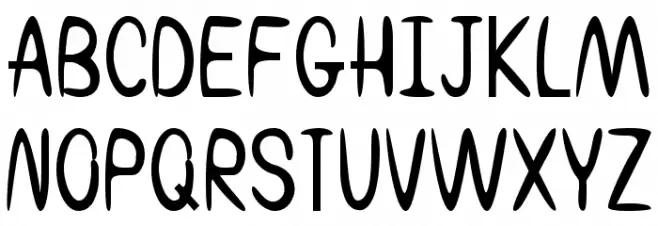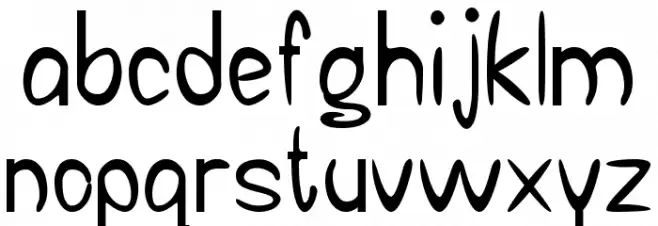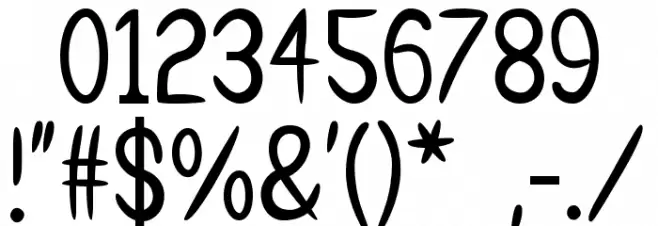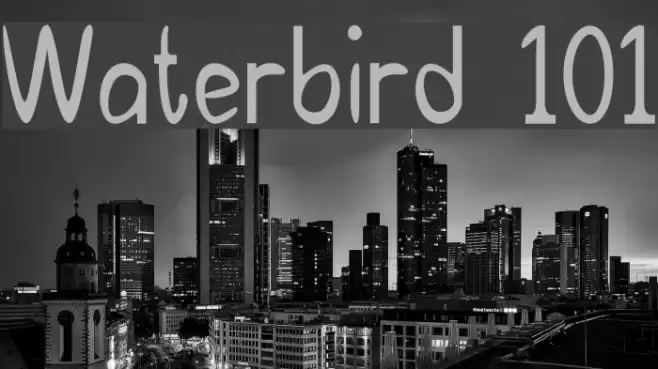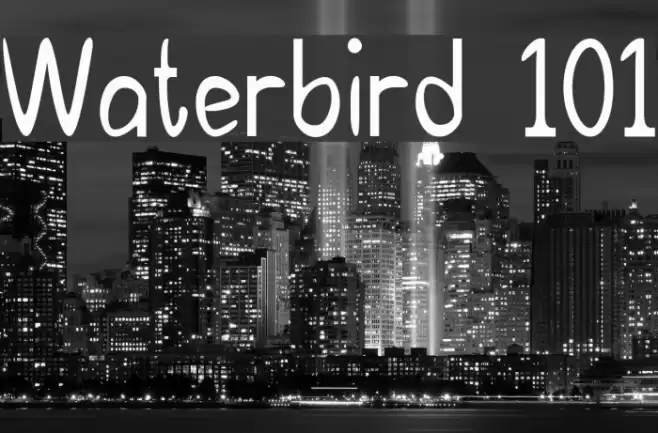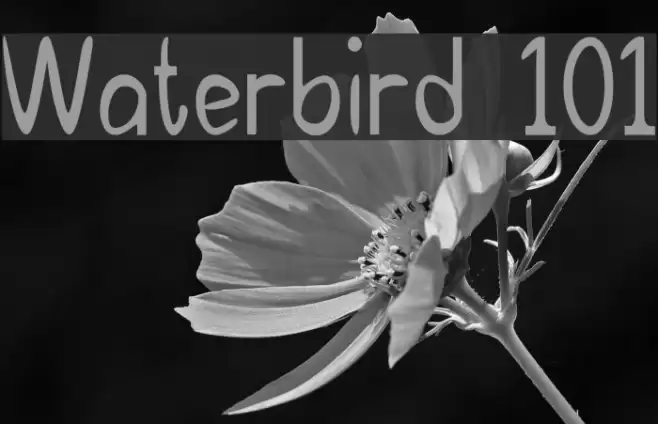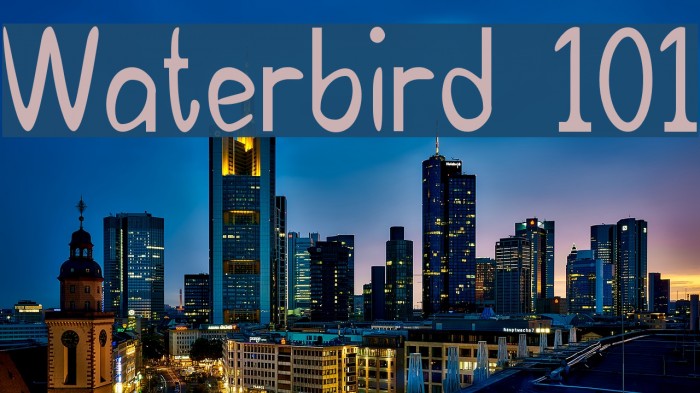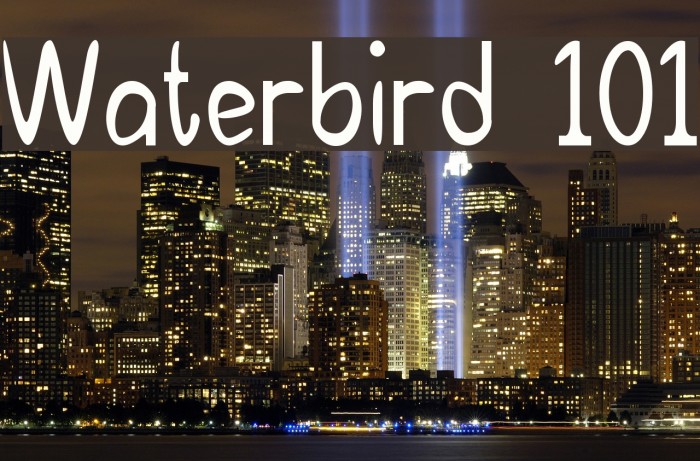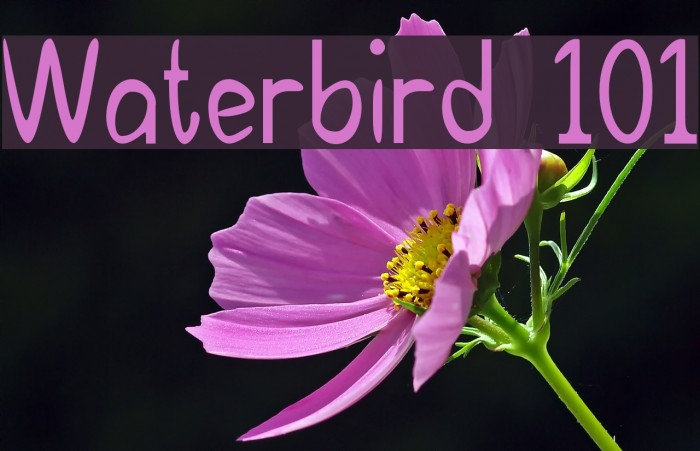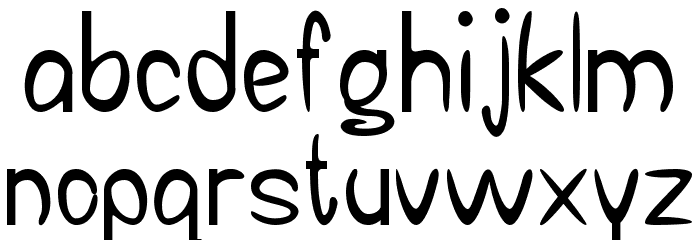
Waterbird 101
This font features a playful and informal style with rounded edges and a hand-drawn appearance. The letters are slightly irregular, giving it a whimsical and friendly feel. The uppercase and lowercase characters maintain a consistent style, with a slight slant that adds to the casual aesthetic. Numbers and special characters are designed to match the overall playful theme, making it suitable for creative and fun projects. The strokes are moderately thick, contributing to a medium contrast between thick and thin lines. This font is ideal for projects that require a touch of personality and creativity.
A playful, hand-drawn font with rounded edges and a whimsical style.
- Proposed Projects: Great for children's books, greeting cards, playful branding, and creative posters.
- Overall Style: Decorative
- Use Case: Headlines, Logos, Posters